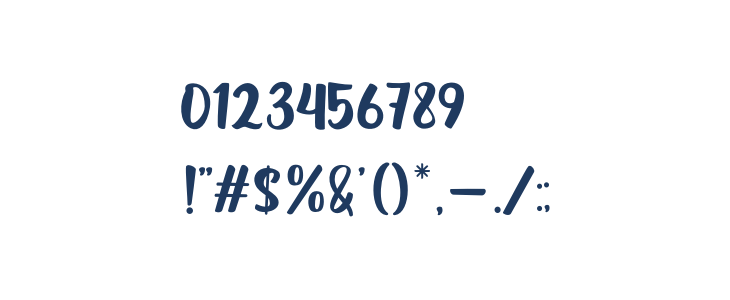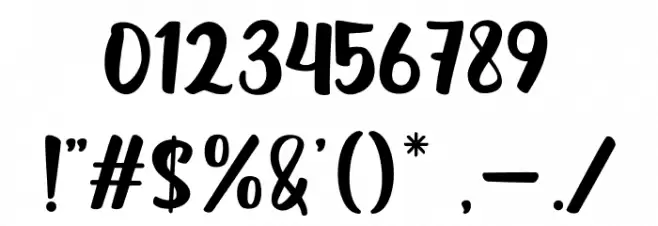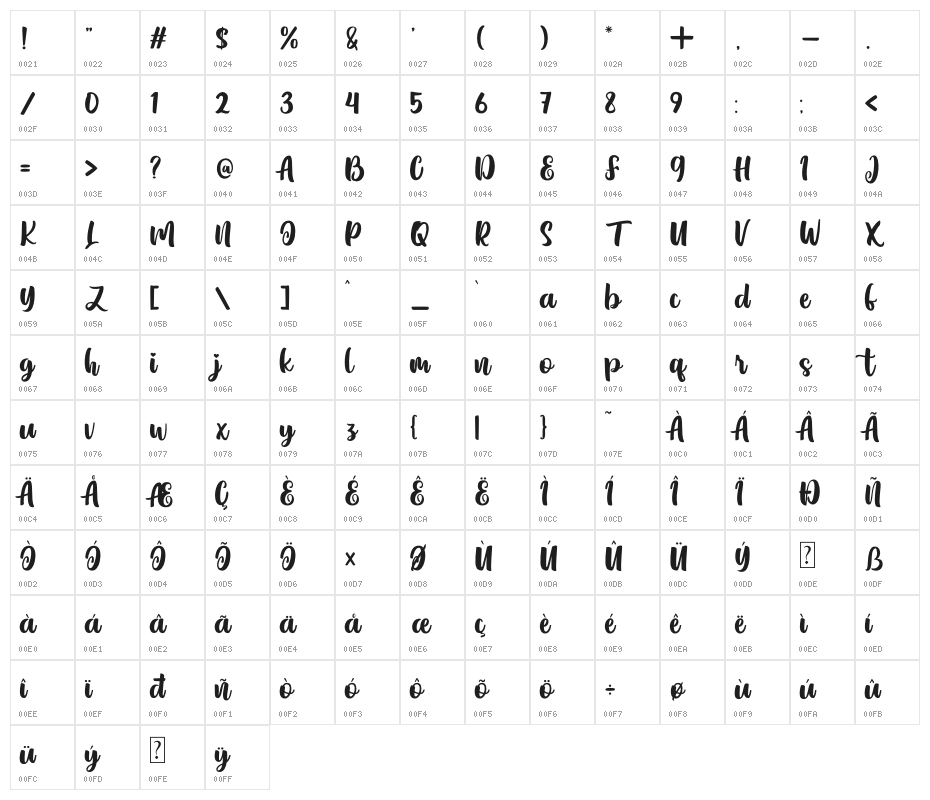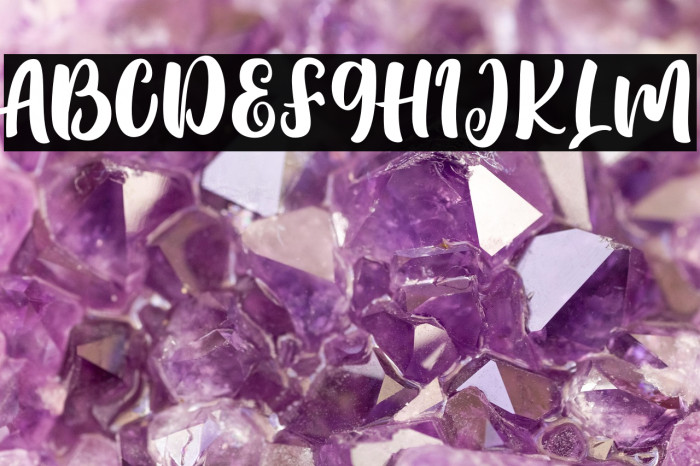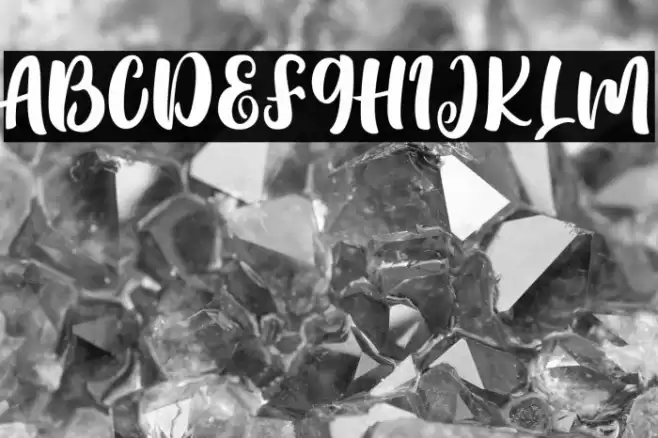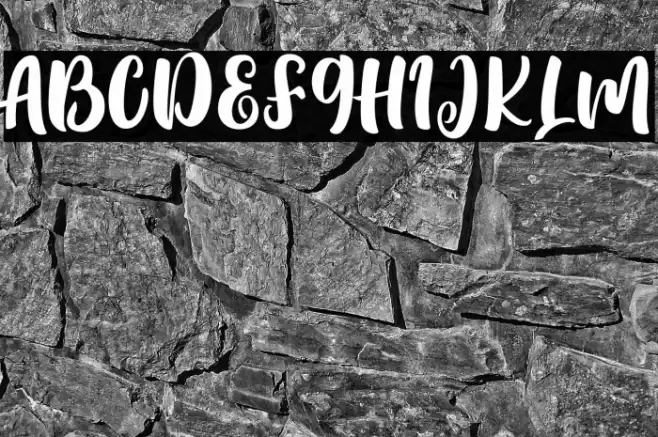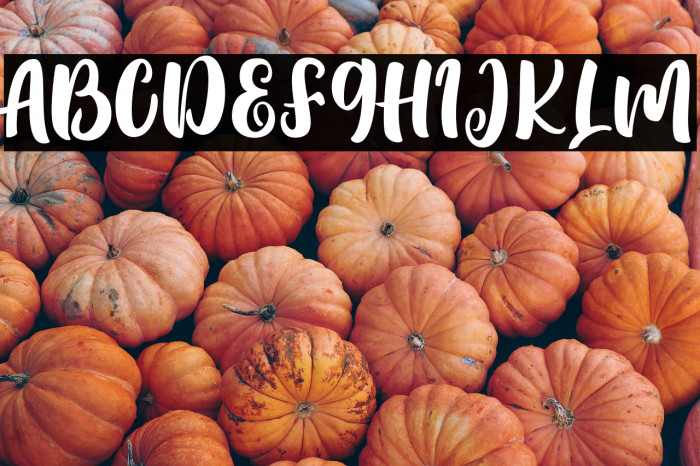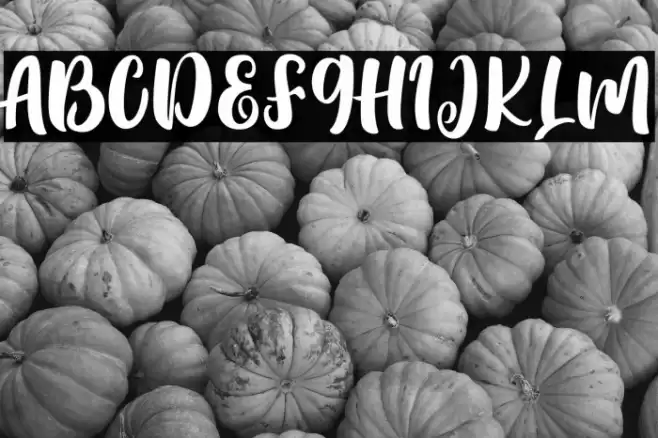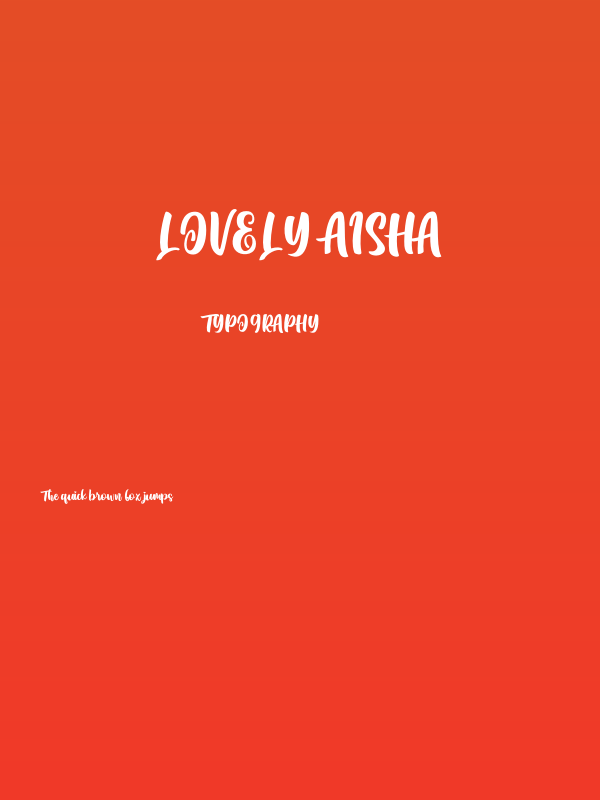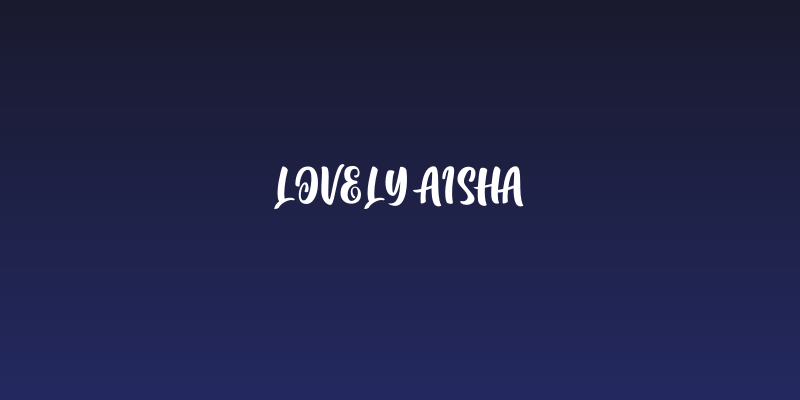
Lovely Aisha Font
Lovely Aisha Description
This font features a playful and bold script style with a handwritten feel. The letters are characterized by smooth, flowing curves and a consistent stroke width, giving it a lively and dynamic appearance. The uppercase letters are slightly larger and more pronounced, while the lowercase letters maintain a cohesive and balanced look. The numbers and special characters complement the overall style, maintaining the same playful and bold characteristics. This font is perfect for projects that require a touch of whimsy and personality.
Use CaseLogos, Headlines, Invitations
Proposed ProjectsIdeal for greeting cards, invitations, playful branding, and social media graphics.